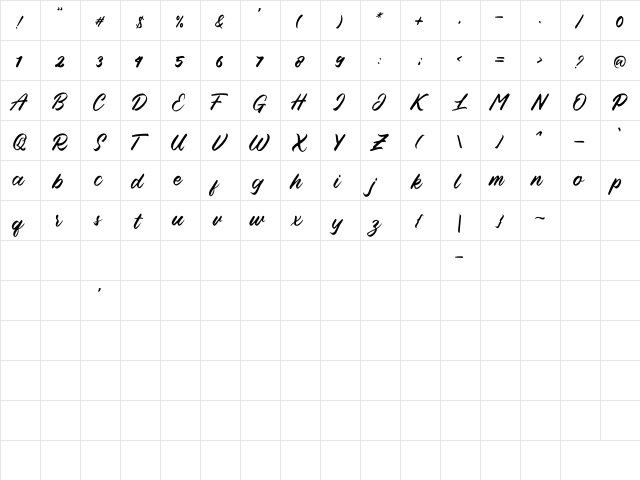
Blessed Friday Rounded Regular
| Designer | Ade Santani |
Design Context for Blessed Friday Rounded Typeface
Blessed Friday Rounded softens its letterforms with rounded terminals, giving it an approachable, friendly quality that works well in consumer-facing and digital contexts.
A natural fit for tech startups, health and wellness brands, children's products, and friendly consumer apps.
Font Pairing: Pairs well with a rounded or humanist sans for body copy, maintaining the friendly tone without relying on Blessed Friday Rounded to carry extended reading.
Pro Tip: Pair Blessed Friday Rounded with a geometric sans for a balanced system — the rounded softness works as a warm counterpoint to harder-edged companions.